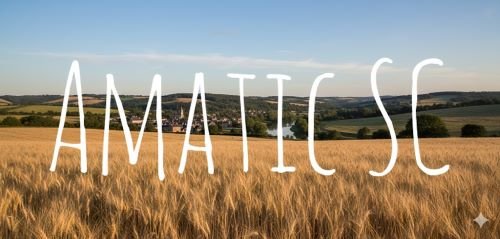
Amatic Font
Amatic SC is a tall, hand-drawn display typeface by Vernon Adams with a casual and playful personality — its narrow, slightly irregular strokes give it a friendly and artistic feel that makes it perfect for posters, headlines, social media graphics, children’s designs, and creative branding that needs a warm human touch. Free for personal and commercial use.
Designer: Vernon Adams
Style: Hand-drawn Font, Display Font